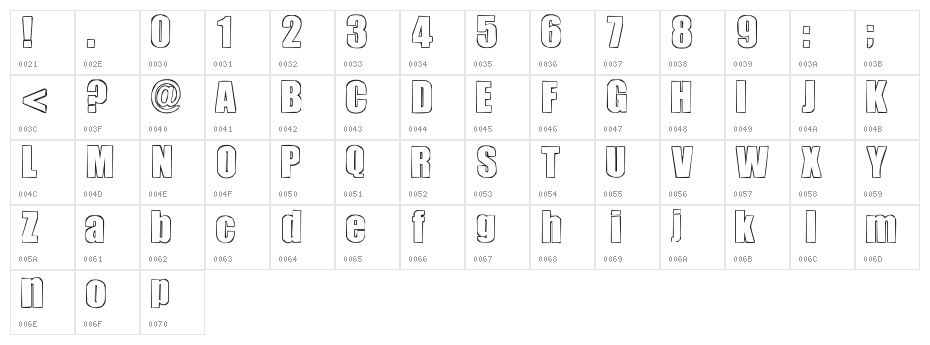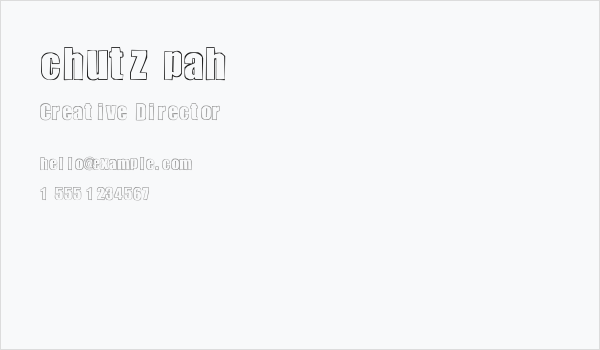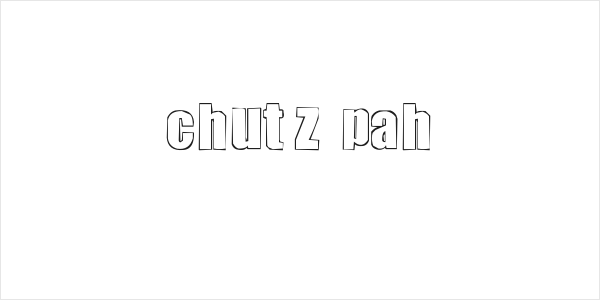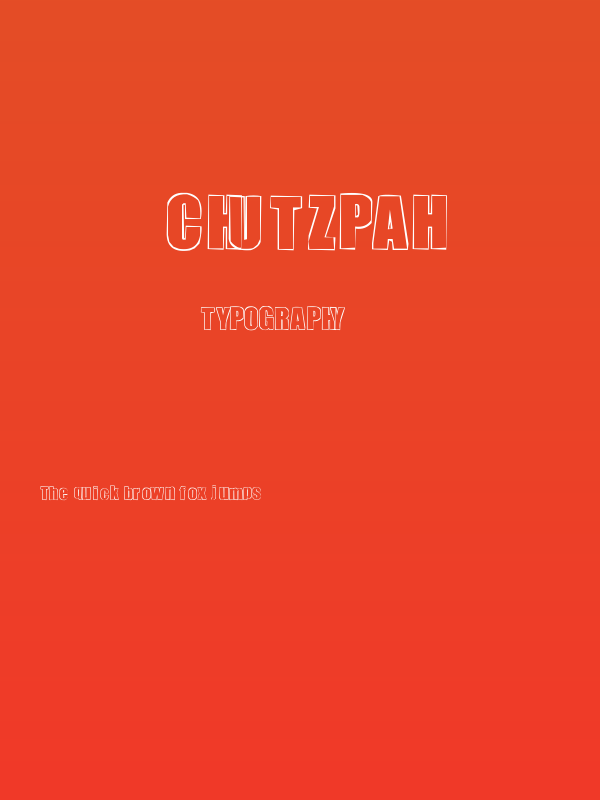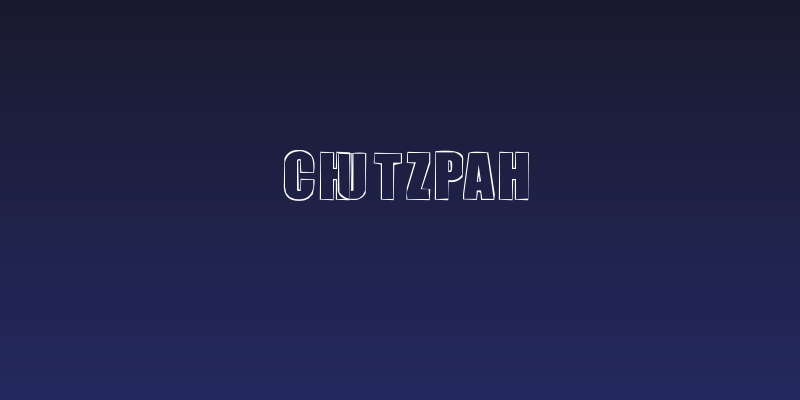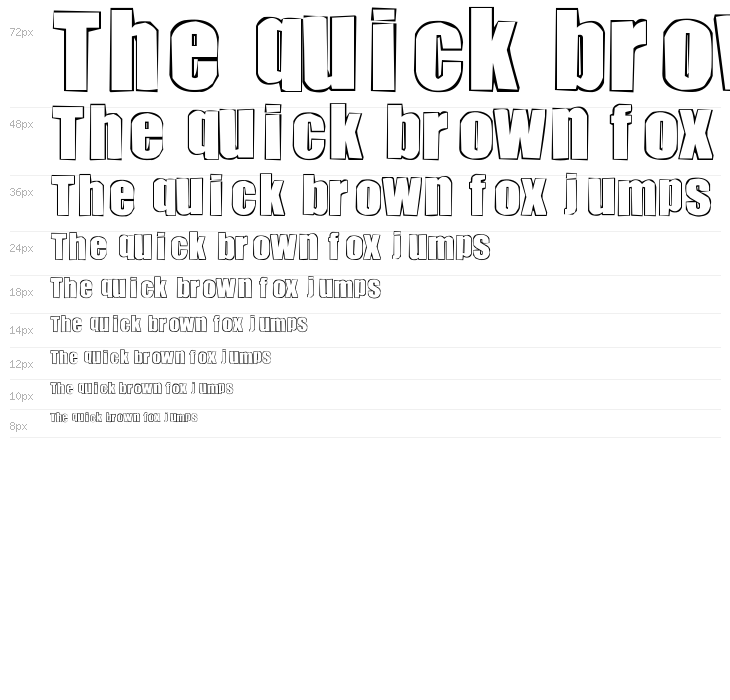
chutzpah Font
chutzpah Description
This font features bold, blocky characters with a strong presence. The letters are outlined, giving them a three-dimensional effect that adds depth and visual interest. The uppercase and lowercase letters maintain a consistent style, with wide, uniform strokes that convey a sense of stability and strength. The numbers and special characters follow the same design principles, ensuring a cohesive look across all elements. This font's boldness and outline style make it particularly eye-catching and suitable for impactful designs.
| Proposed Projects | Ideal for posters, headlines, logos, and any design requiring a bold, attention-grabbing font. |